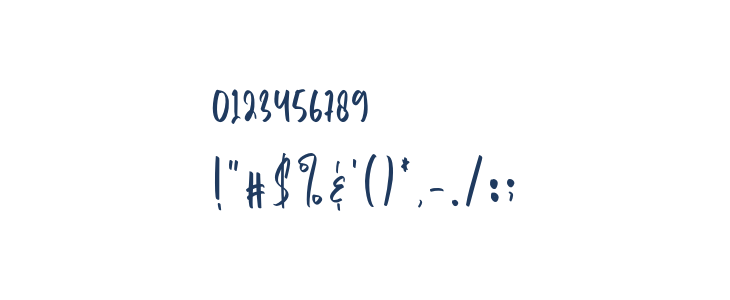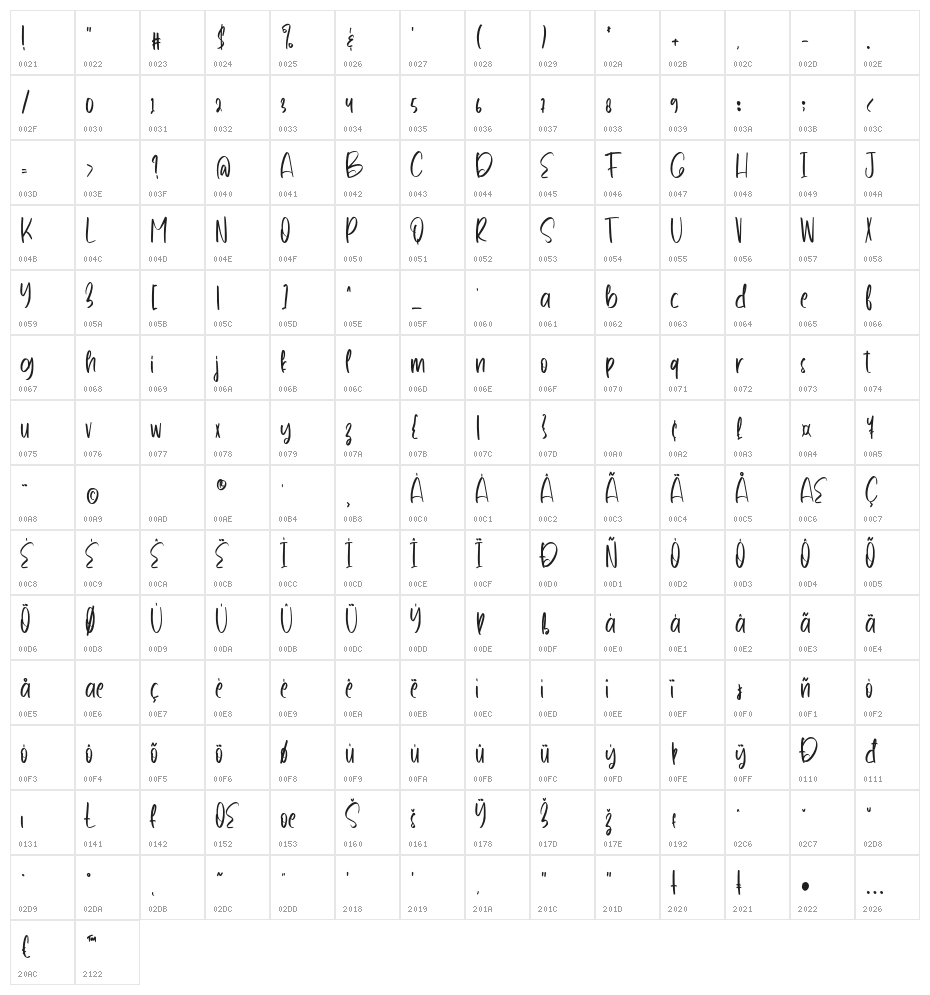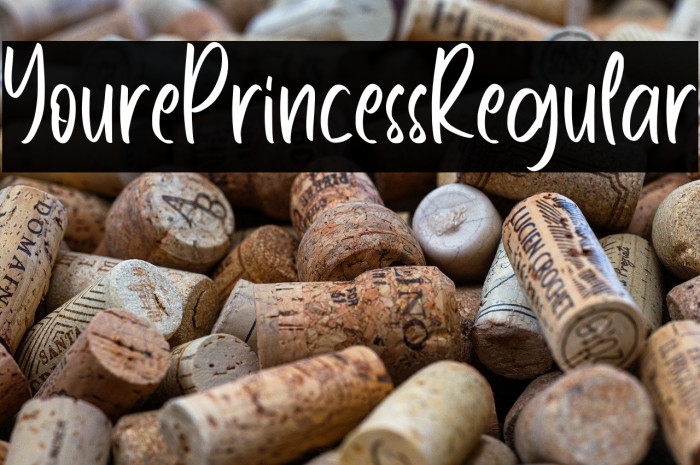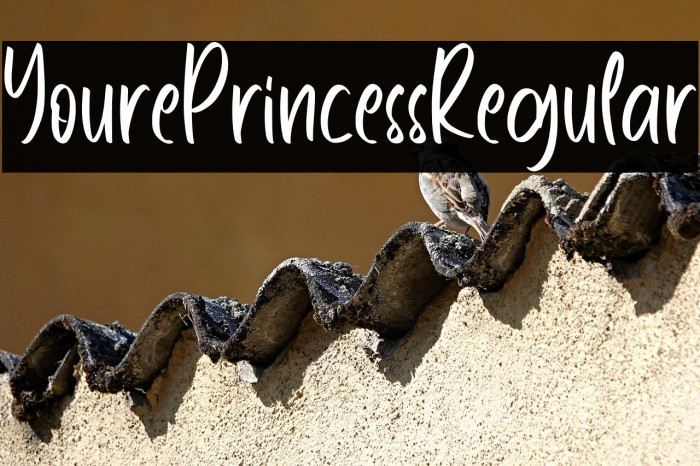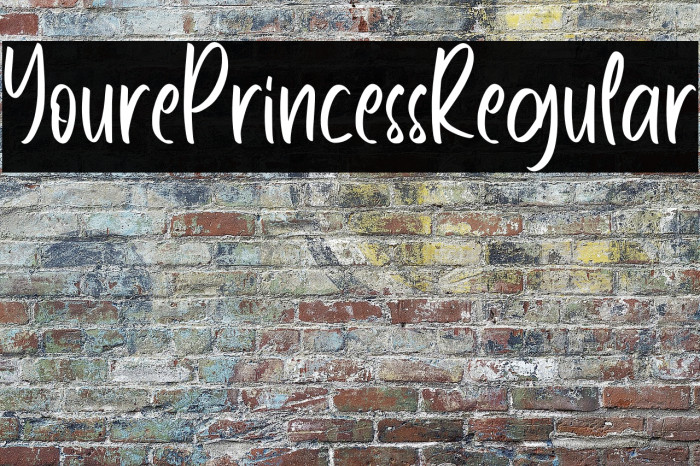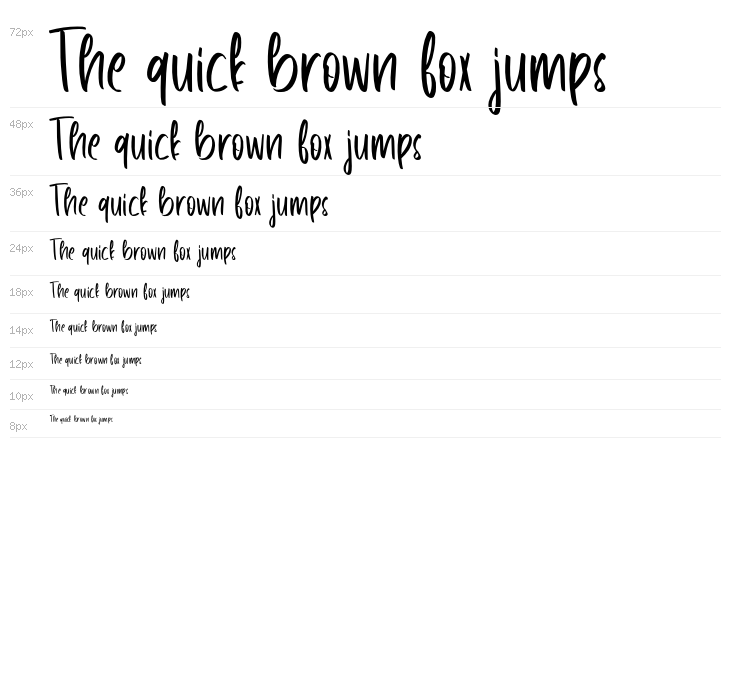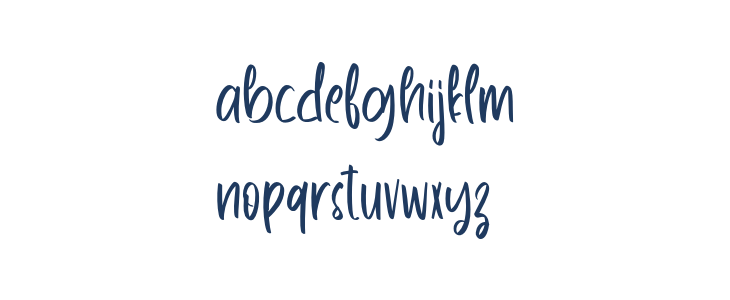
YourePrincessRegular Font
YourePrincessRegular Description
This font features a playful and whimsical handwritten style, characterized by its flowing and slightly irregular strokes. The letters have a casual, friendly appearance, with varying heights and a slight slant that adds to its informal charm. The uppercase letters are bold and prominent, while the lowercase letters maintain a consistent flow, making it suitable for creative and artistic projects. The numerals and special characters are designed to match the overall playful aesthetic, ensuring a cohesive look across all text elements.
Use CaseLogos, Headlines, Creative projects
Proposed ProjectsIdeal for greeting cards, invitations, children's books, and creative branding projects.